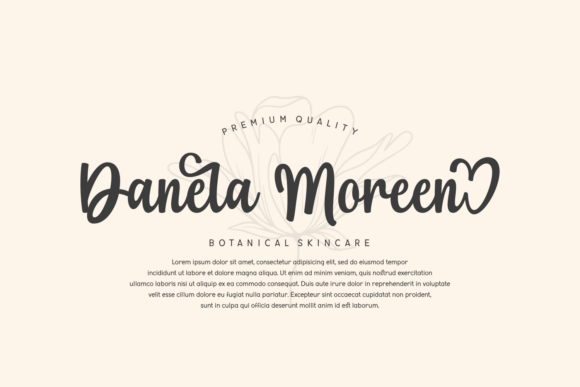
Discover the Charm of Charming Girly Font: Elevate Your Designs with Elegance and Whimsy
In the world of typography, few fonts capture the essence of femininity and charm as effortlessly as Charming Girly. This delightful modern script typeface is designed to radiate sweetness and fun, making it an ideal choice for a wide range of creative projects. Whether you’re a designer, a DIY enthusiast, or a business owner looking for a unique branding element, Charming Girly is sure to add a touch of elegance and whimsy to your work.
The Unique Characteristics of Charming Girly Font
Charming Girly is more than just a font; it’s an experience. Its bold yet playful lettering is crafted to make a statement, while its unique love swashes add an extra layer of charm. These distinctive features make Charming Girly perfect for projects that demand a feminine touch, such as wedding invitations, social media posts, and DIY stationery.
Bold yet Playful Lettering
The bold lettering of Charming Girly is both eye-catching and elegant. Its modern script style is designed to be versatile, allowing it to complement a variety of themes without overpowering them. This makes Charming Girly an excellent choice for designers who want to create visually appealing content that stands out.
Unique Love Swashes
One of the standout features of Charming Girly is its unique love swashes. These decorative elements add a touch of romance and whimsy to any design, making them perfect for projects like wedding invitations, Valentine’s Day cards, and other feminine-themed creations.
Perfect for Feminine Designs and Branding
Charming Girly is specifically designed to meet the needs of feminine designs and branding. Its elegant and playful style makes it an excellent choice for businesses and individuals looking to create a strong, yet delicate brand identity. Whether you’re launching a new product, rebranding your business, or simply want to add a personal touch to your marketing materials, Charming Girly is the perfect font for the job.
Wedding Invitations and Stationery
Wedding planning is an exciting time, and every detail matters. Charming Girly is a fantastic choice for wedding invitations, save-the-date cards, and other stationery. Its romantic and whimsical style sets the tone for a beautiful and memorable wedding celebration.
Social Media Posts and Graphics
In today’s digital age, social media is a crucial platform for businesses and individuals alike. Charming Girly can add a touch of personality to your social media posts and graphics, making them more engaging and shareable. Whether you’re promoting a product, sharing a personal story, or simply want to connect with your audience, Charming Girly is the perfect font to use.
DIY Projects and Crafts
For DIY enthusiasts and crafters, Charming Girly offers endless possibilities. Use it to create personalized gifts, decorate your home, or make unique cards and invitations. The font’s playful and charming style is sure to inspire your creativity and bring a smile to your face.
Why Choose Charming Girly Font?
With so many fonts available, why choose Charming Girly? Here are just a few reasons why this delightful modern script typeface stands out:
Versatility
Charming Girly is incredibly versatile, making it suitable for a wide range of projects and themes. Whether you’re working on a wedding invitation, a social media post, or a DIY craft, Charming Girly is sure to complement your design.
Elegance and Whimsy
Charming Girly strikes the perfect balance between elegance and whimsy. Its bold lettering and unique love swashes add a touch of sophistication and playfulness to any design, making it perfect for feminine and charming projects.
Easy to Use
Charming Girly is easy to use, even for those who are new to design. Its clean and intuitive style makes it simple to pair with other fonts and design elements, ensuring a seamless and enjoyable design experience.
In conclusion, Charming Girly is a delightful modern script typeface that is sure to elevate your designs with elegance and whimsy. Its bold yet playful lettering, combined with unique love swashes, makes it the perfect font for feminine designs, branding, and creative projects. Whether you’re crafting wedding invitations, social media posts, or DIY stationery, Charming Girly adds a touch of charm and whimsy that is sure to delight. So why wait? Discover the charm of Charming Girly font today and take your designs to the next level!